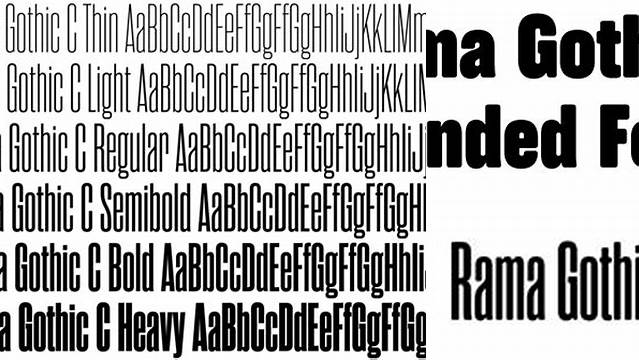
Rama Gothic Rounded: Free Font Download Guide
Hey guys! Are you on the hunt for a modern, versatile, and super readable font for your next design project? Look no further! Today, we’re diving deep into the Rama Gothic Rounded font family. This font is a fantastic choice for everything from branding to web design, and we're going to show you where to snag it for free and how to make the most of it. Let’s get started!
What is Rama Gothic Rounded?
First off, let’s understand what makes Rama Gothic Rounded so special. This font family is known for its clean lines, rounded terminals, and overall friendly appearance. It's incredibly versatile, making it suitable for a wide range of applications. Think logos, headlines, body text, and even mobile interfaces. The rounded edges give it a softer, more approachable feel compared to traditional Gothic fonts, which can sometimes feel a bit too rigid or formal. Designers love it because it strikes a great balance between modernity and readability, ensuring your message gets across clearly and stylishly.
Key Features of Rama Gothic Rounded
One of the standout features of Rama Gothic Rounded is its exceptional readability. The letterforms are carefully crafted to ensure clarity, even at smaller sizes. This makes it an excellent choice for body text in websites, apps, and print materials. Another key feature is its versatility. The font family typically includes multiple weights (e.g., light, regular, bold, black), giving you plenty of options to create visual hierarchy and emphasis in your designs. The rounded terminals add a touch of warmth and approachability, making it a great choice for brands that want to convey a friendly and welcoming image. Plus, its clean design ensures it works well in both digital and print formats.
Using Rama Gothic Rounded in Graphic Design Projects
Alright, now that you've got Rama Gothic Rounded installed, let's talk about how to use it effectively in your graphic design projects. This font is incredibly versatile, but here are a few tips to make the most of it. For logos, Rama Gothic Rounded can give your brand a modern and approachable feel. Use a heavier weight for emphasis and pair it with a complementary font for a balanced look. When it comes to websites, Rama Gothic Rounded works beautifully for both headings and body text. Its readability ensures a pleasant reading experience for your visitors. Use different weights and sizes to create visual hierarchy and guide the user's eye. For print materials like brochures and posters, Rama Gothic Rounded provides a clean and professional look. Use it for headlines, subheadings, and body text to create a cohesive design. Experiment with different font sizes and weights to achieve the desired effect.
Pairing Rama Gothic Rounded with Other Fonts
One of the keys to great typography is pairing fonts effectively. Rama Gothic Rounded plays well with others, but here are a few suggestions to get you started. For a classic and elegant look, pair Rama Gothic Rounded with a serif font like Merriweather or Playfair Display. The contrast between the rounded sans-serif and the serif creates a visually appealing and balanced design. If you're going for a modern and minimalist look, try pairing Rama Gothic Rounded with another clean sans-serif font like Open Sans or Lato. Make sure to choose a font with different characteristics to create some visual interest. For a bolder and more dynamic look, consider pairing Rama Gothic Rounded with a script or handwritten font like Pacifico or Brush Script. Use the script font sparingly, perhaps for headings or callouts, to add a touch of personality and flair. Experiment with different font pairings to find what works best for your project and the overall brand identity.
Conclusion: Why Rama Gothic Rounded is a Great Choice
So, there you have it! Rama Gothic Rounded is a fantastic font family that offers a blend of modernity, readability, and versatility. It's suitable for a wide range of design projects, from logos to websites to mobile app interfaces. Whether you're a seasoned designer or just starting out, Rama Gothic Rounded is a font that you should definitely have in your toolkit. Remember to download it from a reputable source, understand the license terms, and experiment with different weights and styles to find the perfect look for your project. Happy designing, guys!